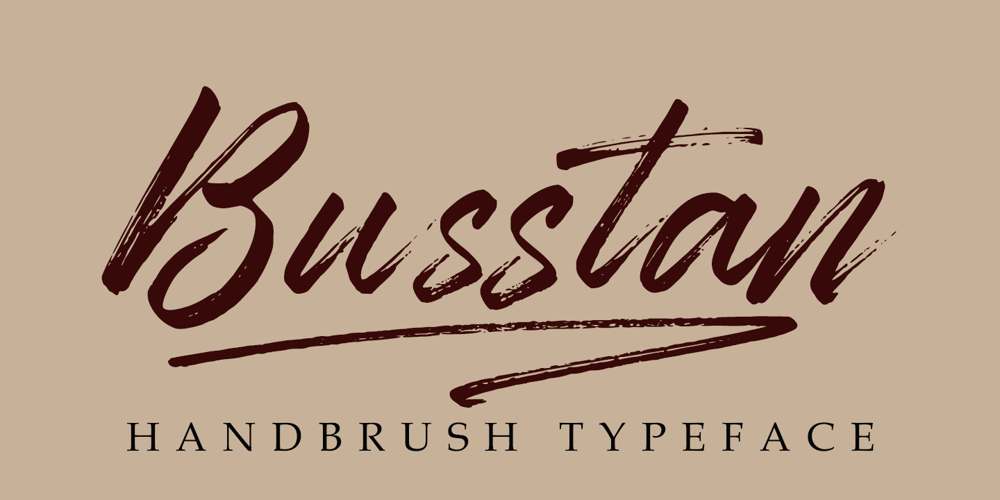
Busstan Font Family was designed by Muhammad Yoni and published by YonTypeStudio Co. Busstan contains 1 styles and family package options. A dapper, rustic, handwritten font with a personal charm. With quick-drying strokes and distinctive styles, Busstan is perfect for branding projects, household appliance designs, product packaging – or just as a style text overlay for any background image. That’s it! I really hope you enjoy it – please do let me know what you think, comments & likes are always hugely welcomed and appreciated.